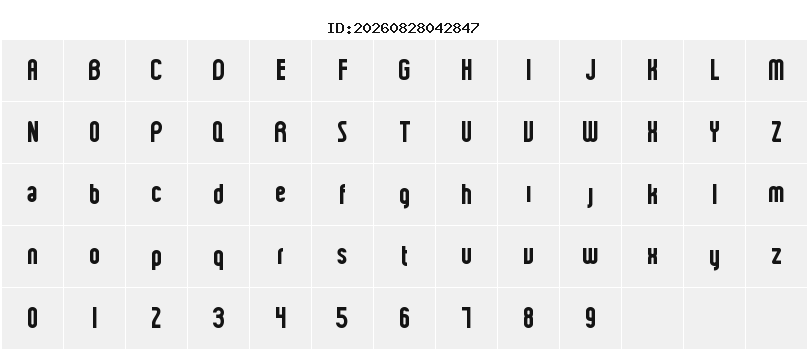
Tricrown Preview
• Font Name: Tricrown
• Full Font Name: Tricrown
About Tricrown.ttf
Tricrown.ttf is a modern, elegant sans-serif font designed for ultimate readability and visual harmony. Perfect for branding, headlines, web design, and print materials.